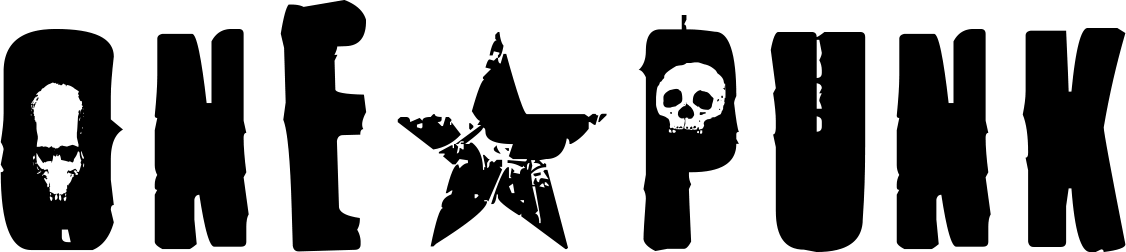
1 Punk Font
1 Punk is a high-quality destroy font that can help you to run a successful design. This punk font emerged with a retro horror design that can be used for scary movies, program titles, headers, cartoons, T-shirts, etc. T…
1 Punk is a high-quality destroy font that can help you to run a successful design. This punk font emerged with a retro horror design that can be used for scary movies, program titles, headers, cartoons, T-shirts, etc. This font has a deformed and bold style with an eccentric design that can catch any eye. Act now and enjoy!